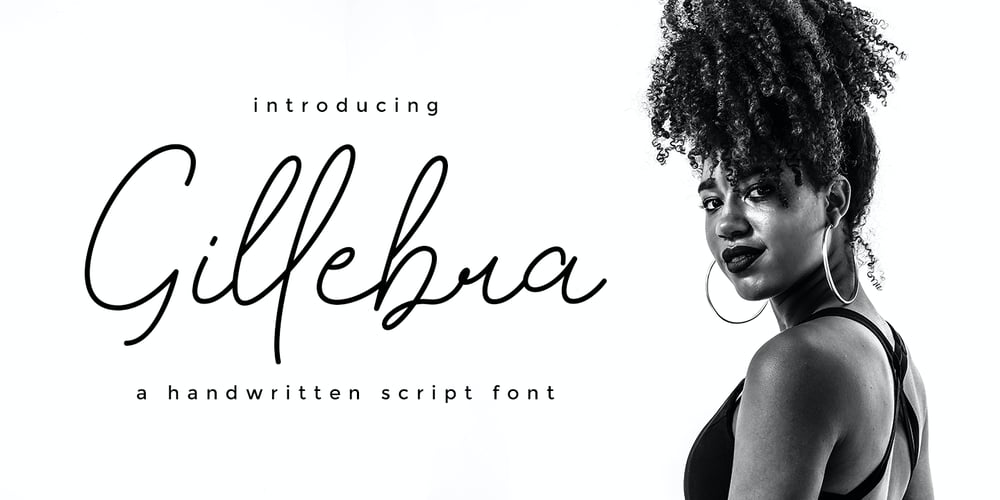
Gillebra
Gillebra font
Gillebra Font Family was designed by Muhammad Khoirul Amal and published by CBRTEXT Studio. Gillebra contains 1 styles and family package options. Gillebra is a modern calligraphic monoline script font with soft, clean curves. It contains a complete set of uppercase & lowercase letters, a wide variety of punctuation marks, numbers, and multilingual support. Perfect for adding a touch of elegance to your projects and branding. Also with their help, you can make beautiful wedding inscriptions or frames for your home. This font is also suitable to be used to help your business, such as book covers, stationery, marketing, magazines, and more.